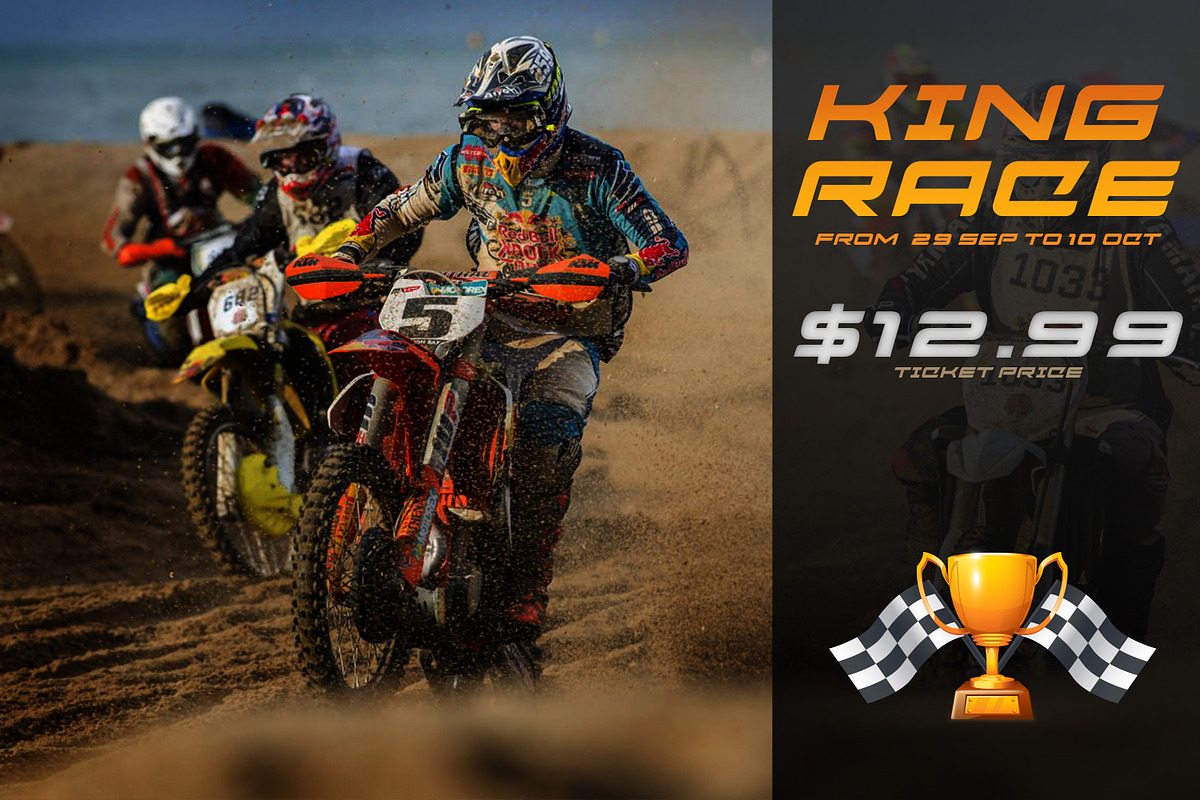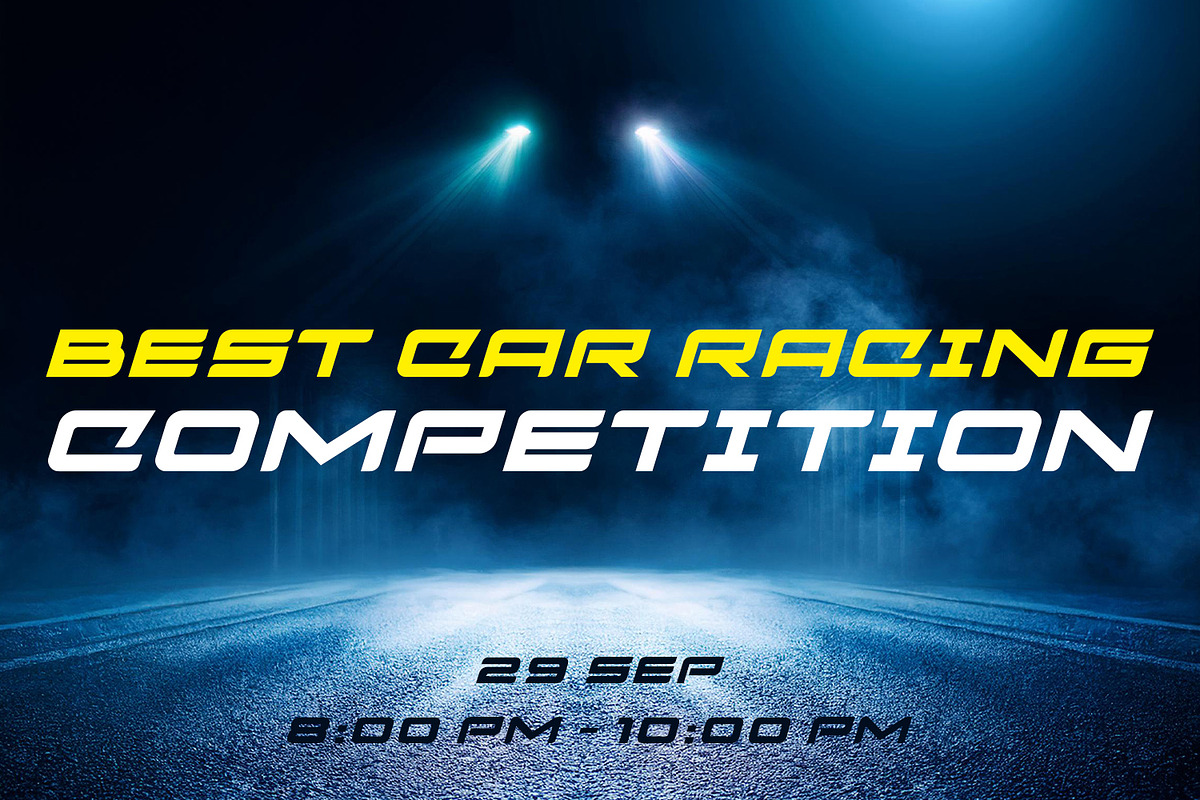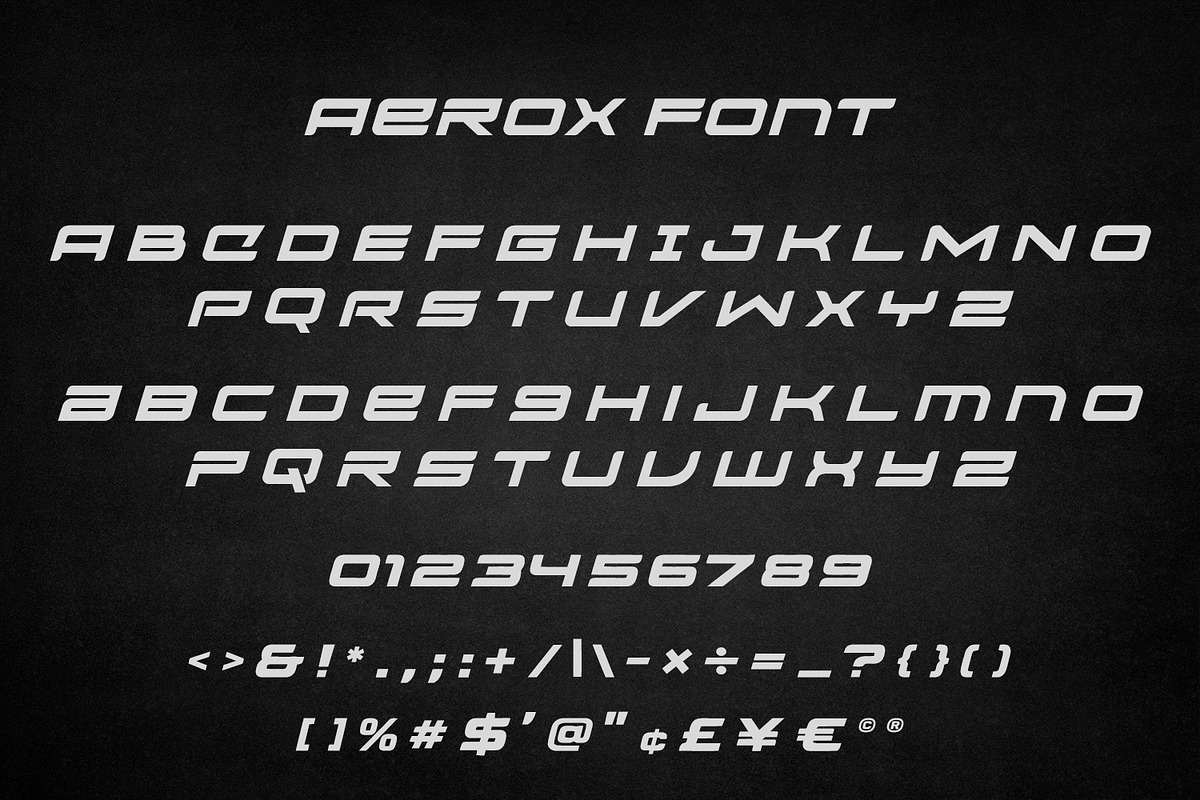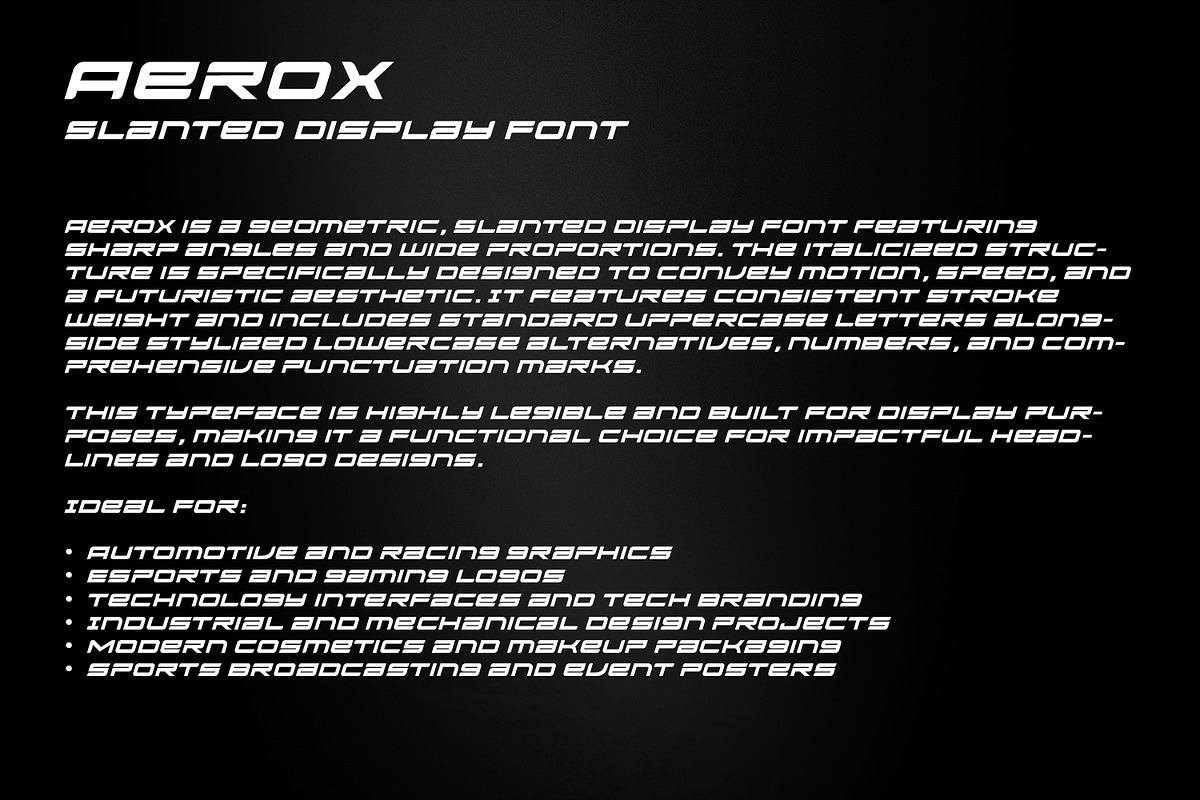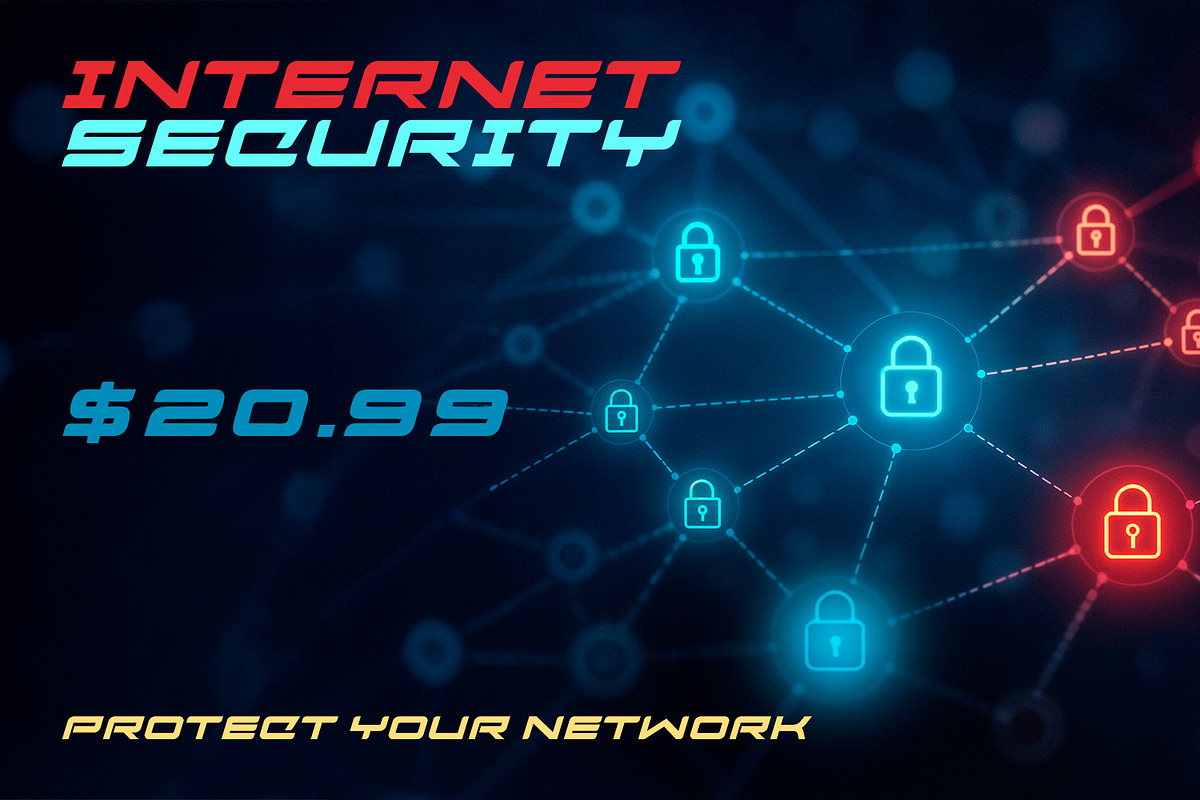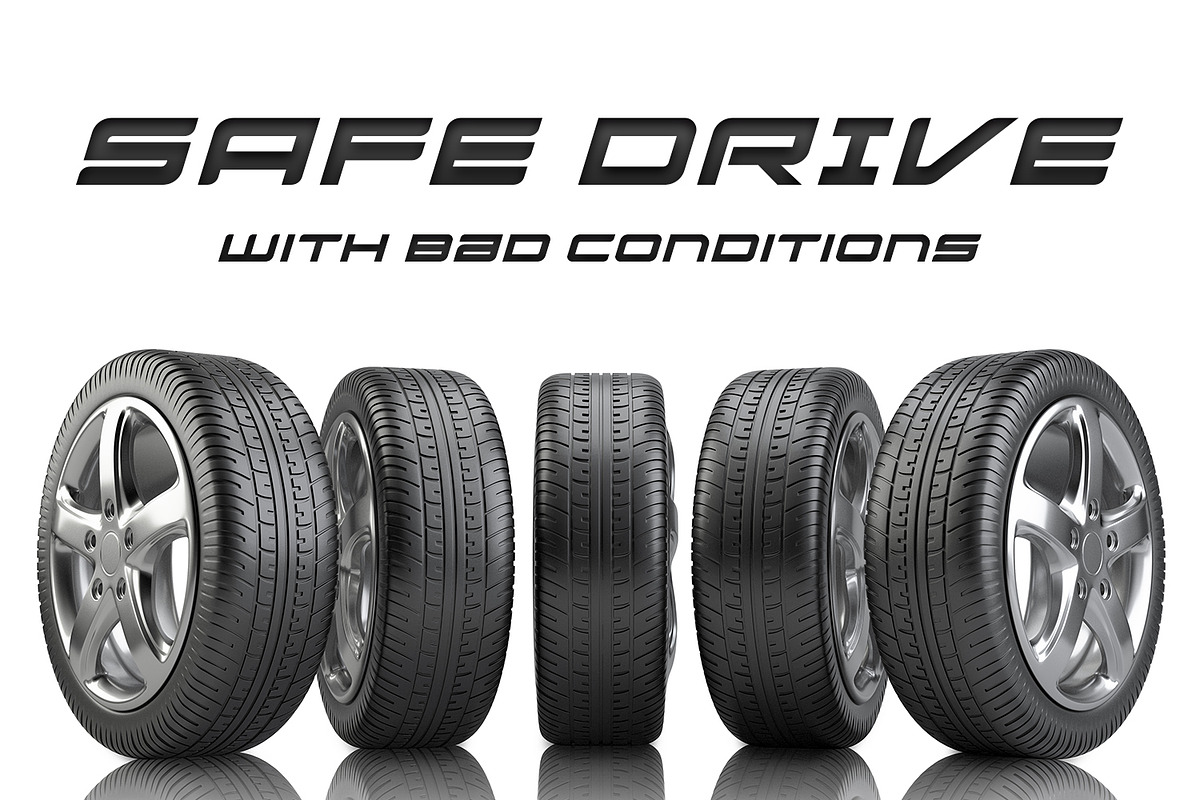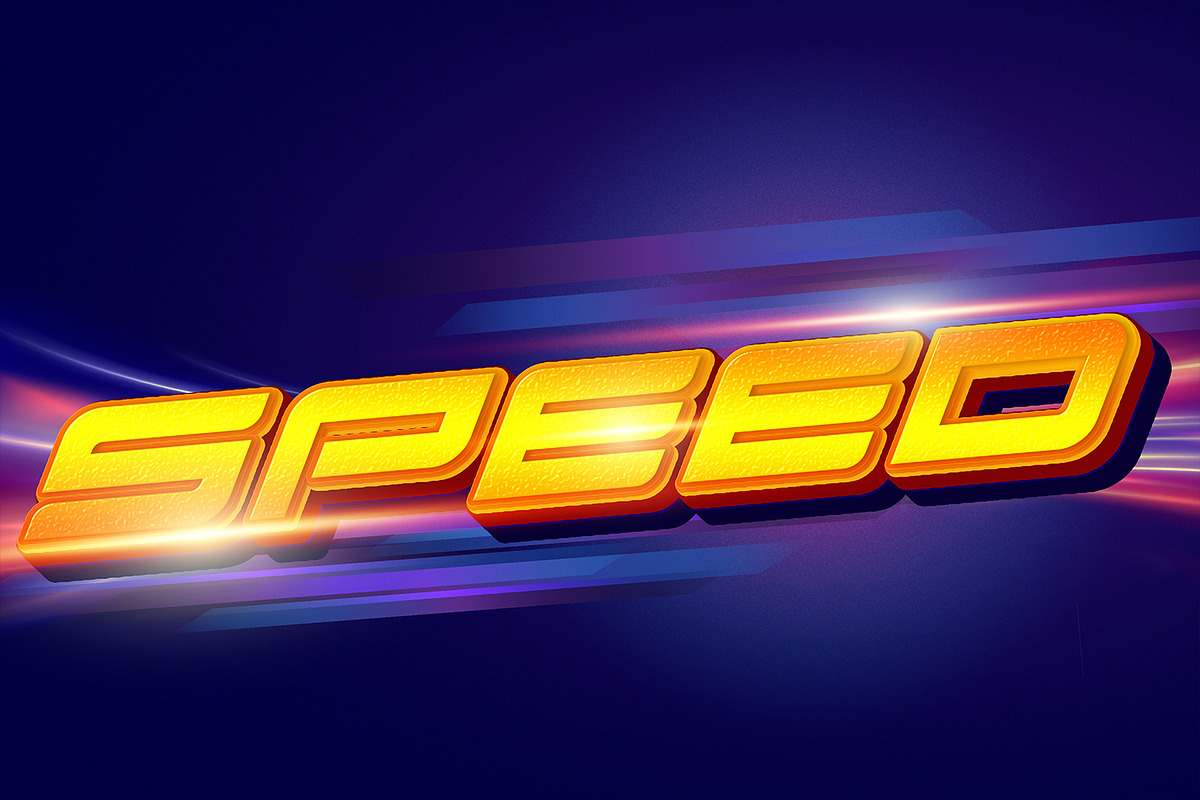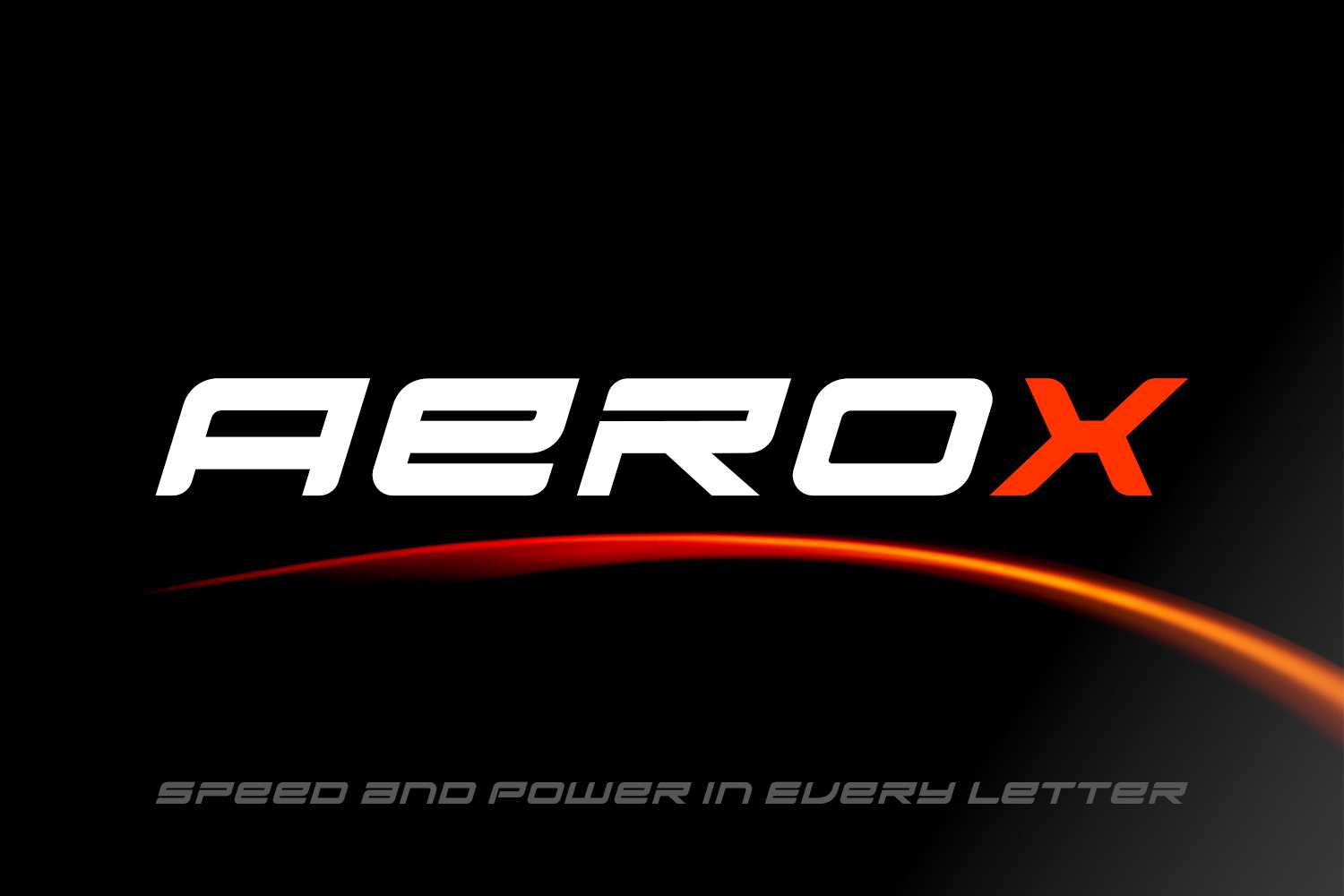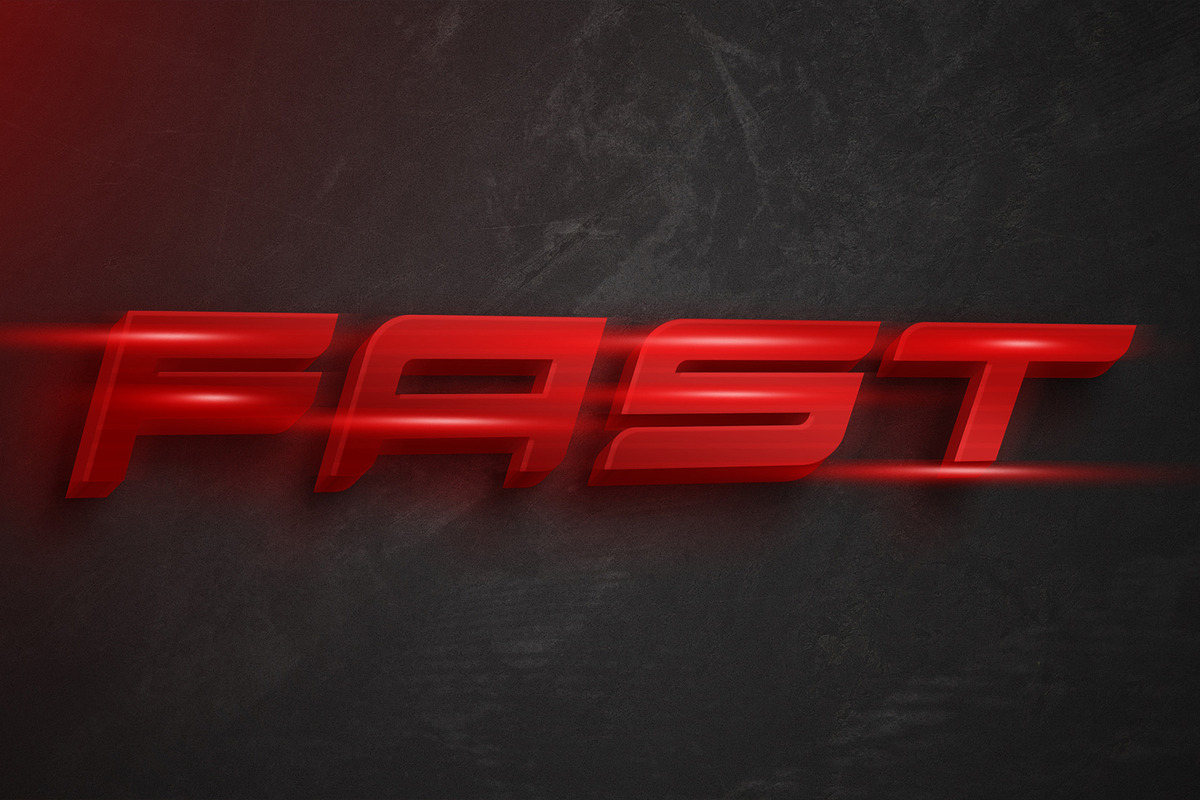
AeroX - Slanted Display Typeface
AeroX is a geometric, slanted display font featuring sharp angles and wide proportions. The italicized structure is specifically designed to convey motion, speed, and a futuristic aesthetic. It features consistent stroke weight and includes standard uppercase letters alongside stylized lowercase alternatives, numbers, and comprehensive punctuation marks. Built for display purposes, this typeface is a functional choice for impactful headlines, automotive graphics, esports logos, technology interfaces, and industrial branding projects.